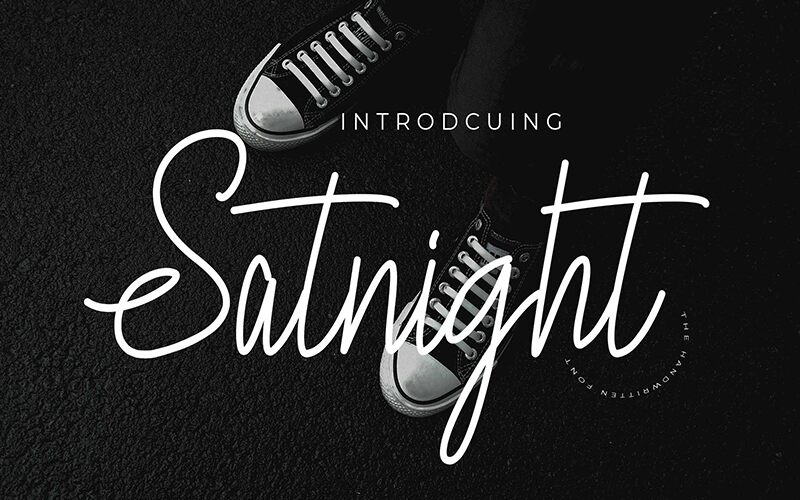
Satnight Signature
Satnight Signature, a beautiful & unique handwritten font from Letterday Studio. Its suitable for invitations, logos & branding, or even for lettering quotes.